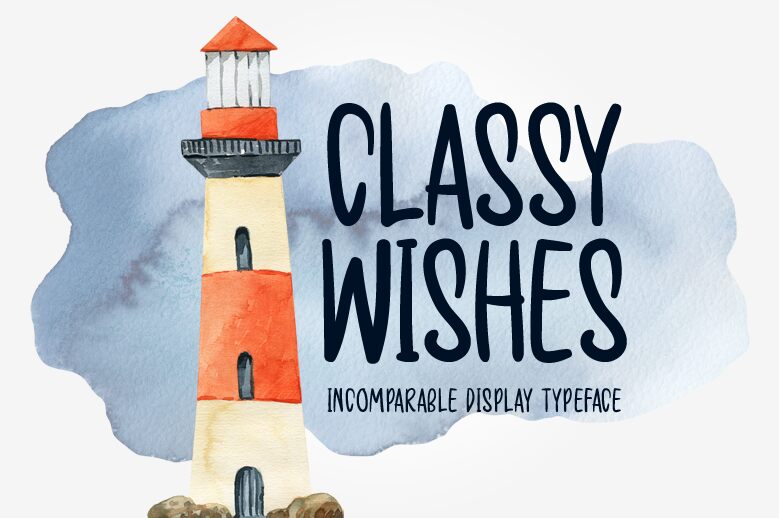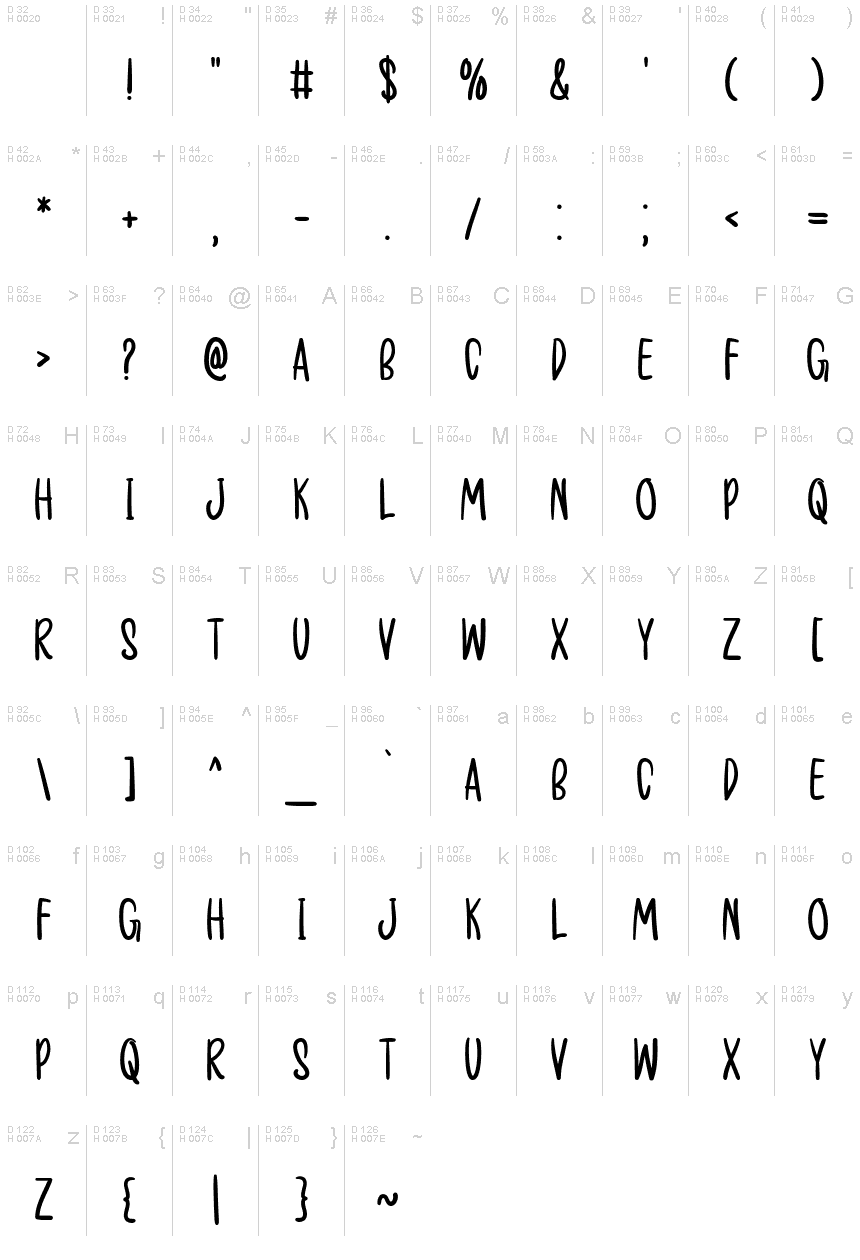
معاينة خط Classy Wishes
Classy Wishes, designed by Md Shohail Bhuian, is an elegant handwritten font that brings a touch of sophistication to any project.
With its semi-light weight and extra-condensed width, this font is perfect for creating stylish wedding invitations or delicate greeting cards. Its flowing lines and graceful curves also make it an excellent choice for creating beautiful logos or branding materials. Whether you're designing a high-end fashion magazine or a luxurious spa brochure, Classy Wishes will add a refined and polished look to your project.